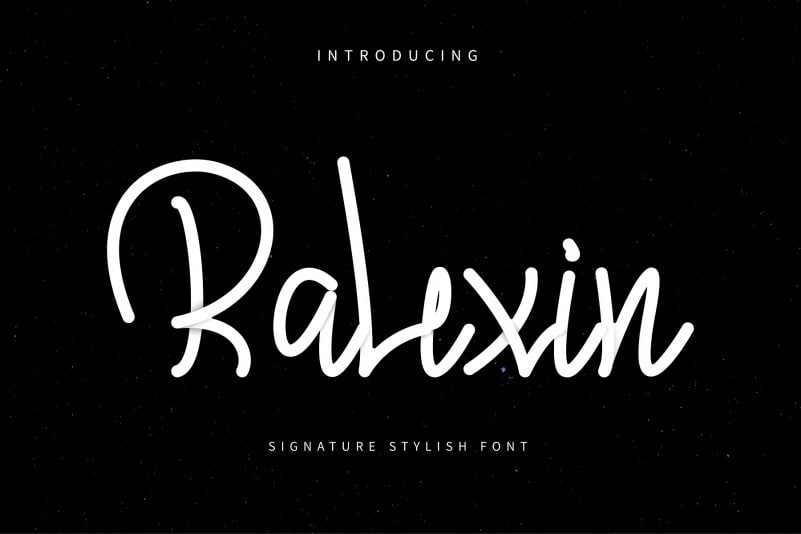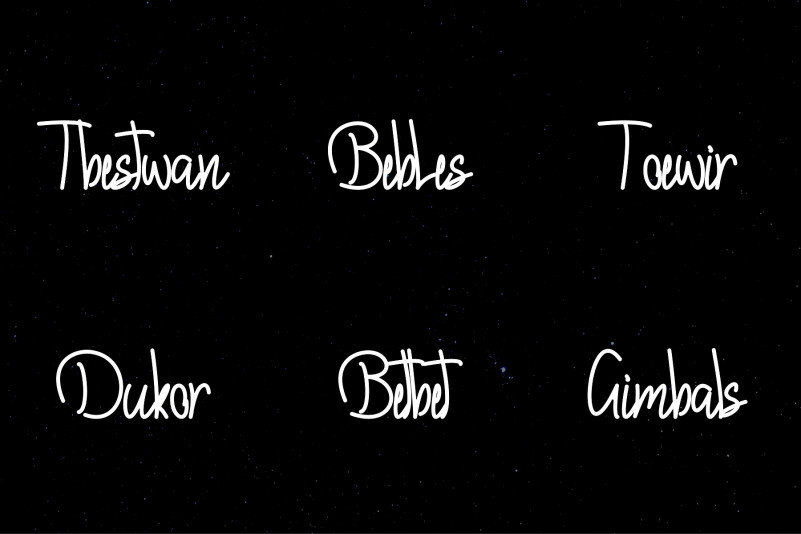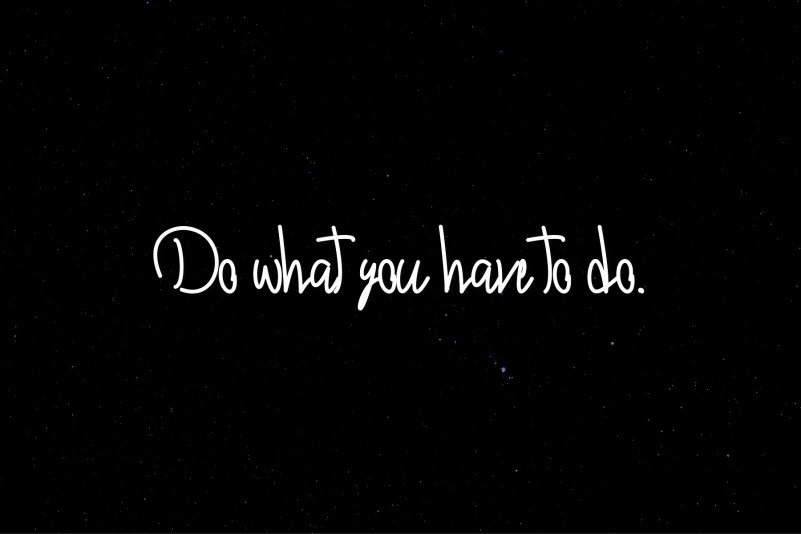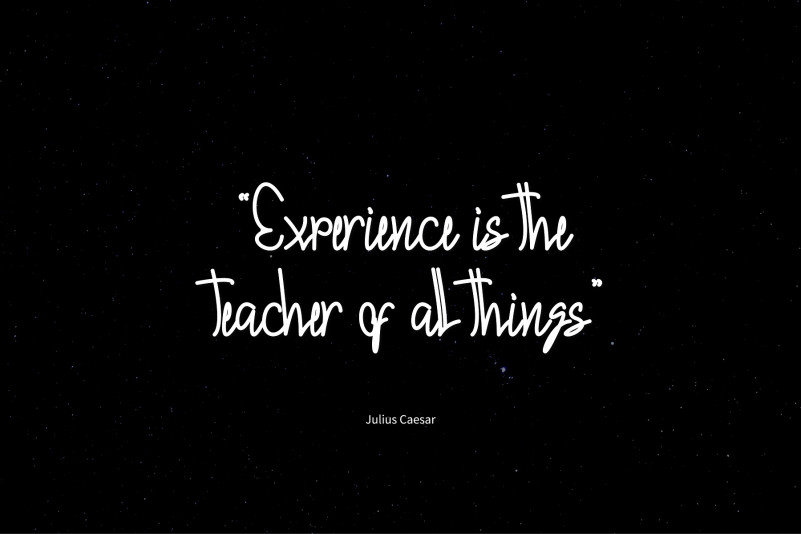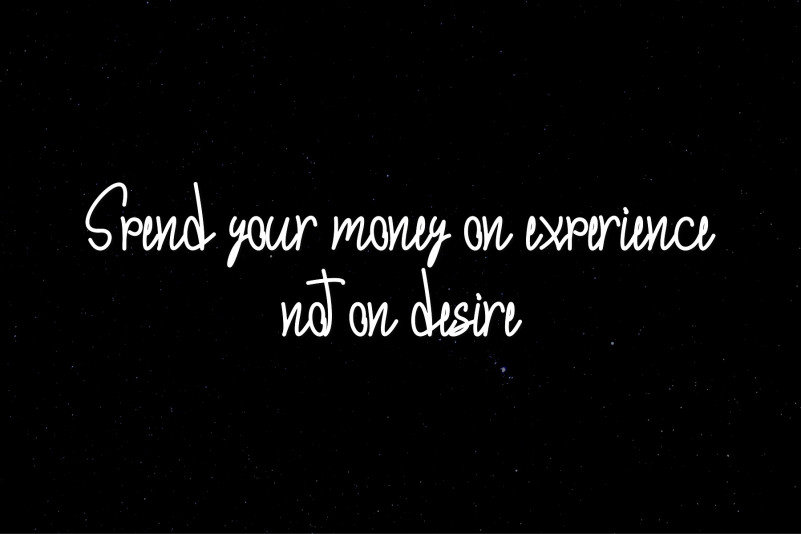
Ralexin – Signature stylish font
Introducing Ralexin – a stylish signature handwritten font!
Ralexin brings a fresh handwritten vibe with smooth strokes and a natural flow. Its versatile style makes it perfect for adding personality to logos, branding, invitations, product packaging, posters, and inspirational quotes.
• Wedding invitations & greeting cards
• Branding & product identity
• Quotes, posters & wall art
• Social media graphics & journaling
Ralexin includes a complete set of characters, punctuation, multilingual support, and a unique handwritten touch that makes your design look authentic and stylish.
Bring creativity and authenticity to your designs with Ralexin ✨